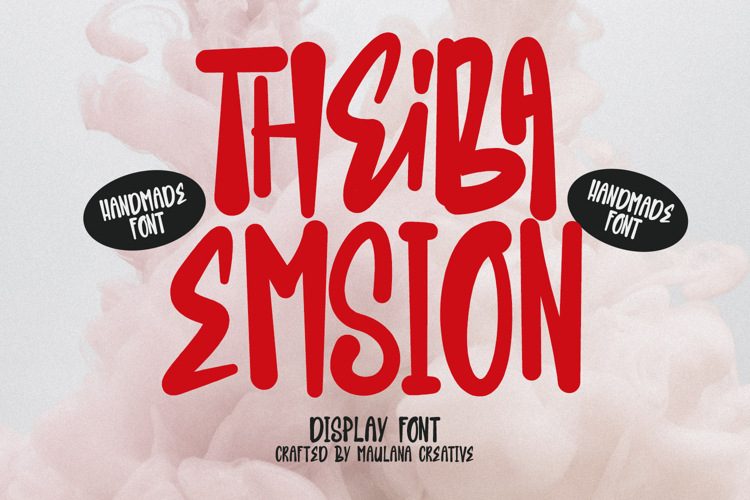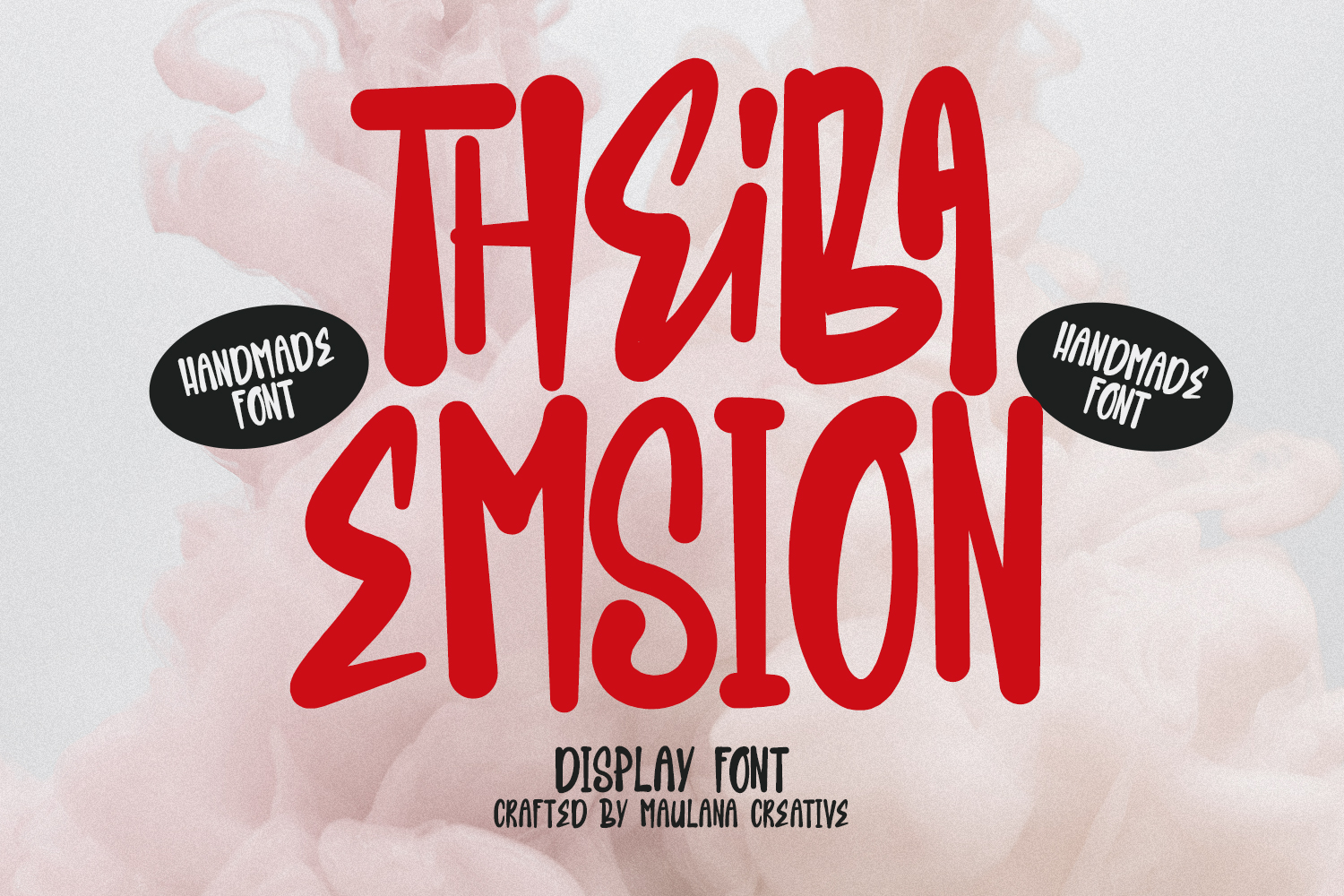
Theiba Emsion is a handmade display font. With cartoon vibes or notes, had a fun character with a bit of ligatures. To give you an extra creative work. Theiba Emsion font support multilingual more than 100+ language. This font is good for logo design, Social media, Movie Titles, Books Titles, a short text even a long text letter and good for your secondary text font with sans or serif. Make a stunning work with Theiba Emsion font.